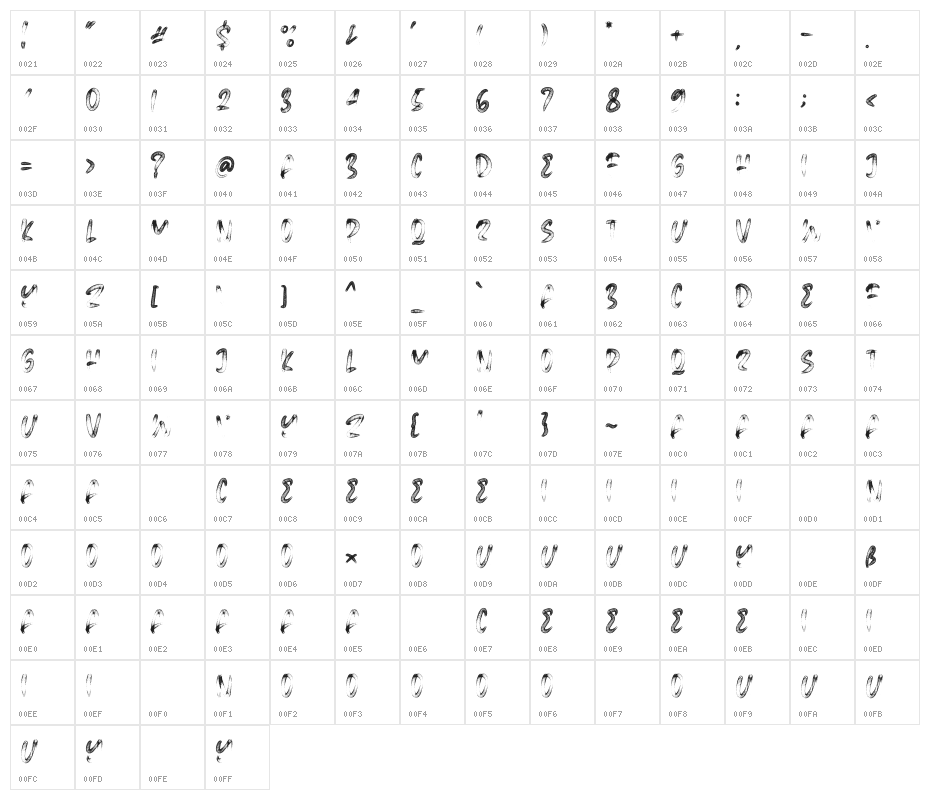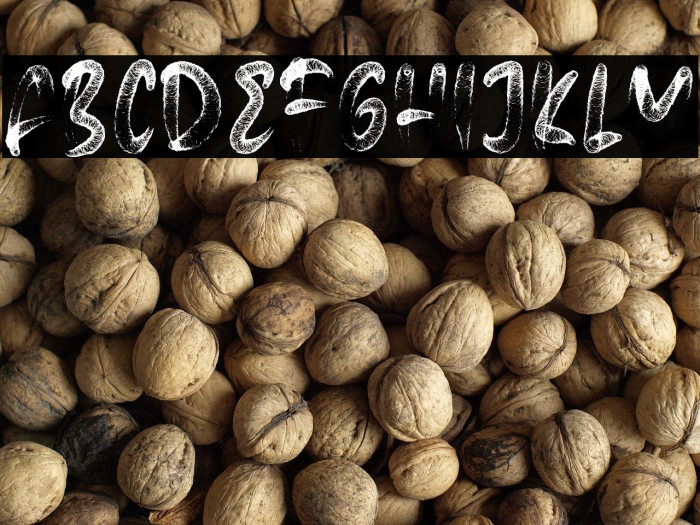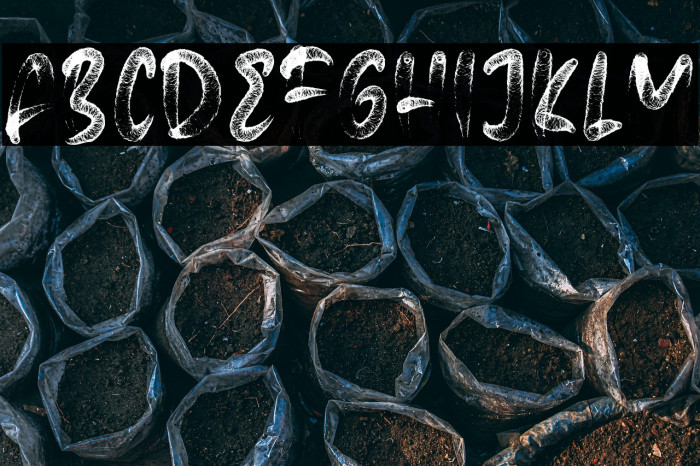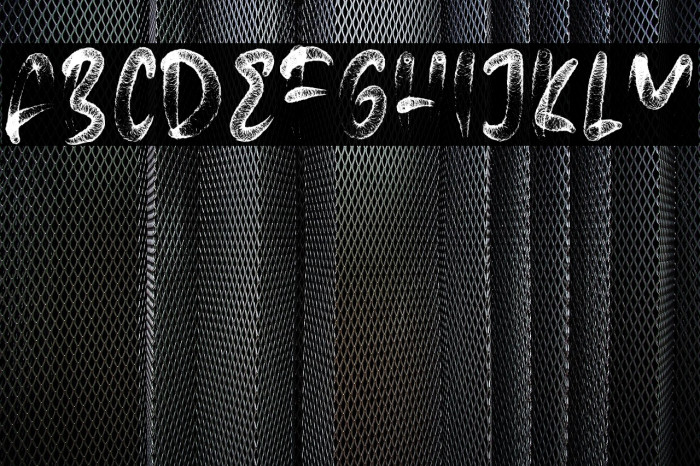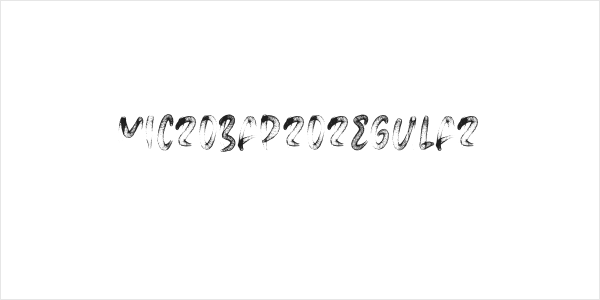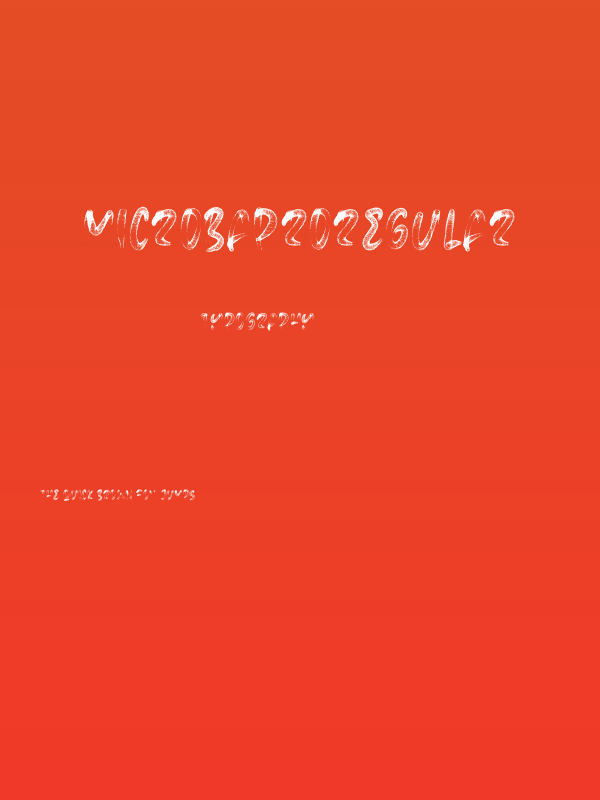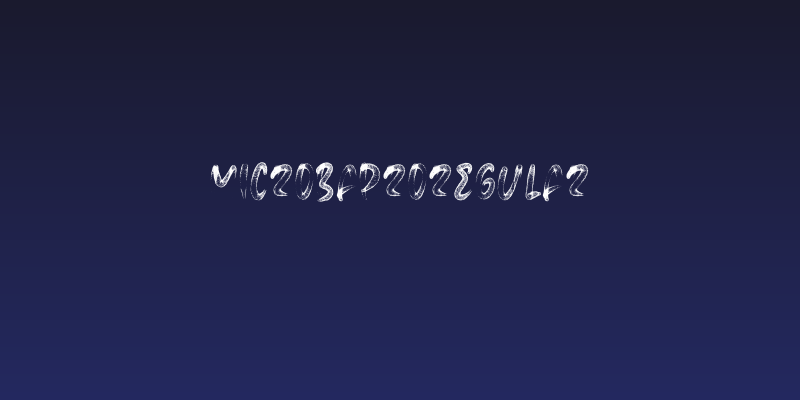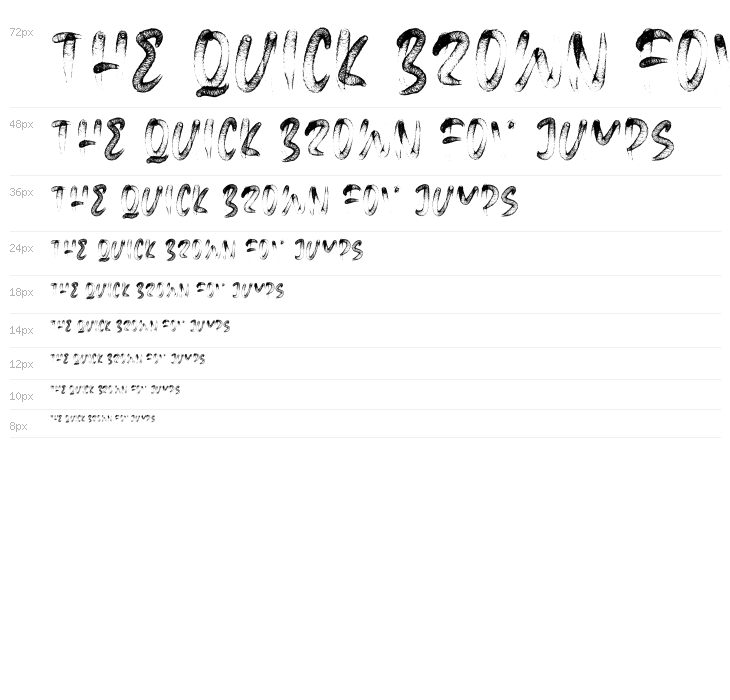
MicrobaProRegular Font
MicrobaProRegular Description
This font features a bold and expressive brush style, characterized by its dynamic strokes and textured appearance. The letters exhibit a sense of movement and energy, with varying stroke widths that create a lively and artistic feel. The uppercase and lowercase letters maintain a consistent style, while the numbers and special characters complement the overall design. The texture within each character adds depth and a handcrafted touch, making it suitable for creative and eye-catching designs.
| Use Case | Logos, Headlines, Posters |
| Proposed Projects | Ideal for artistic projects, posters, branding, and any design requiring a bold, expressive touch. |